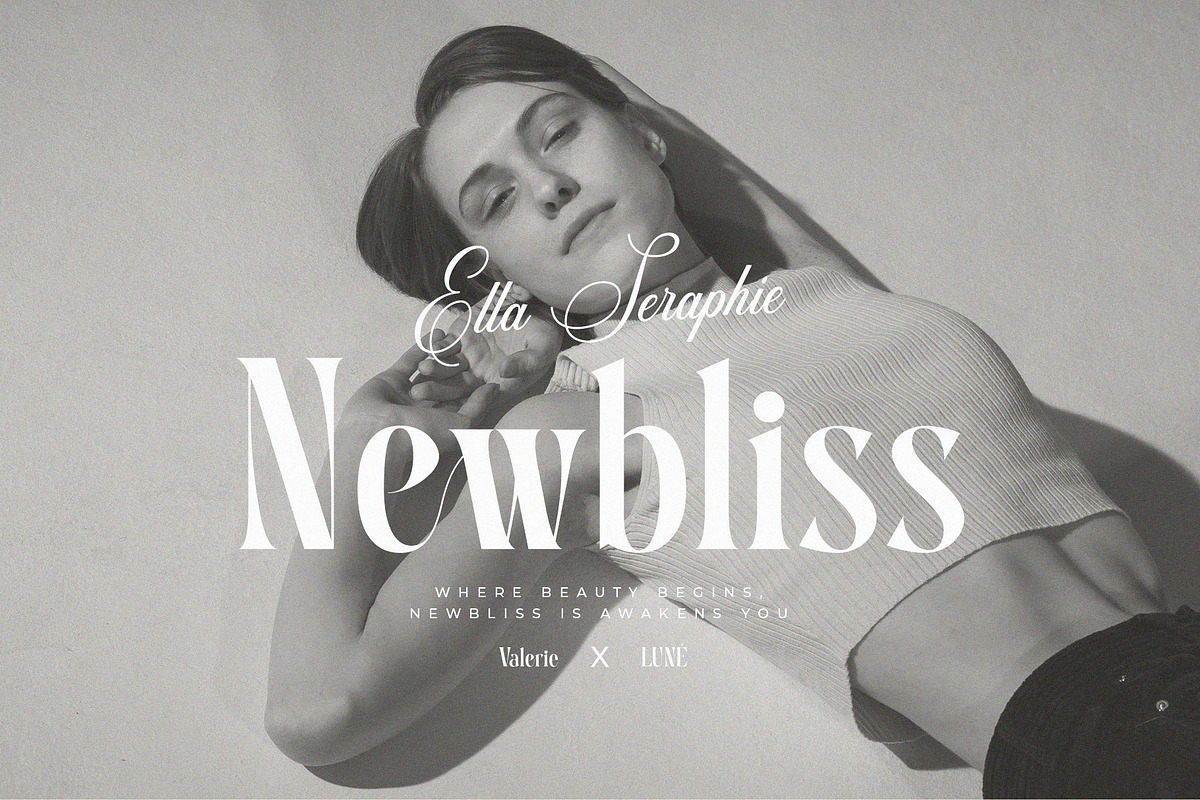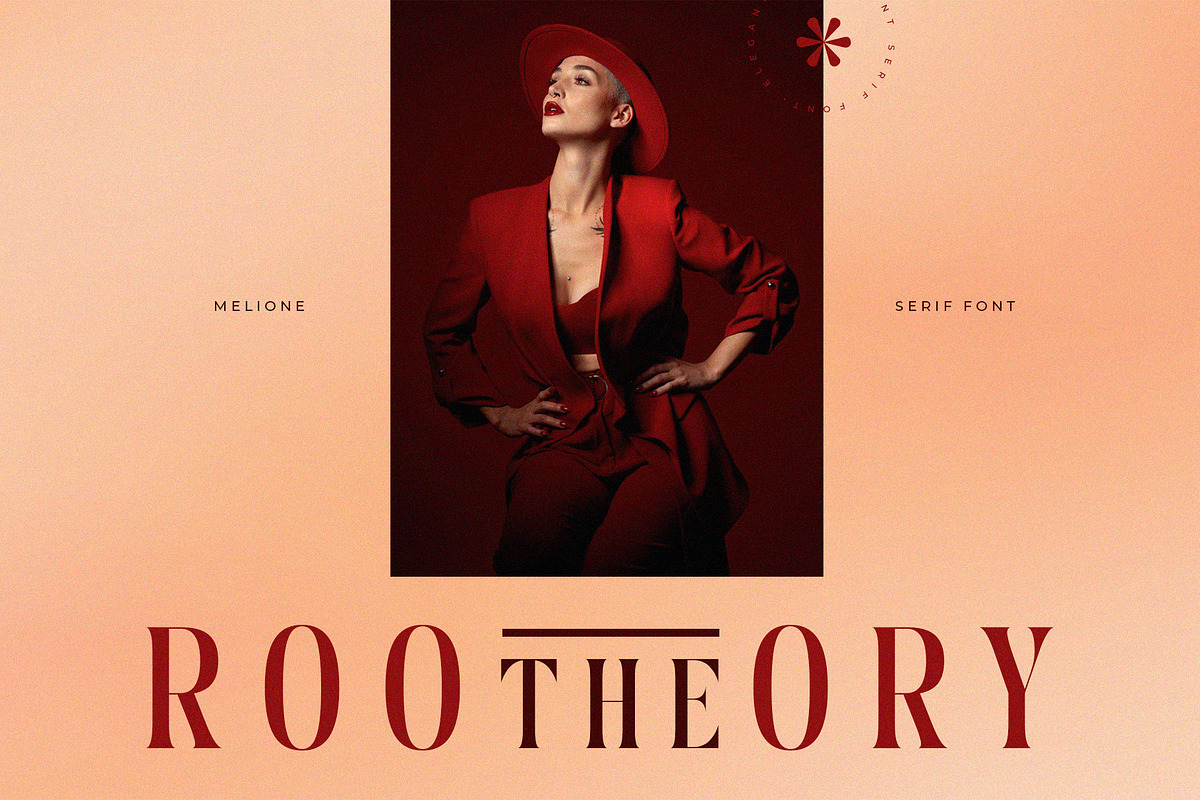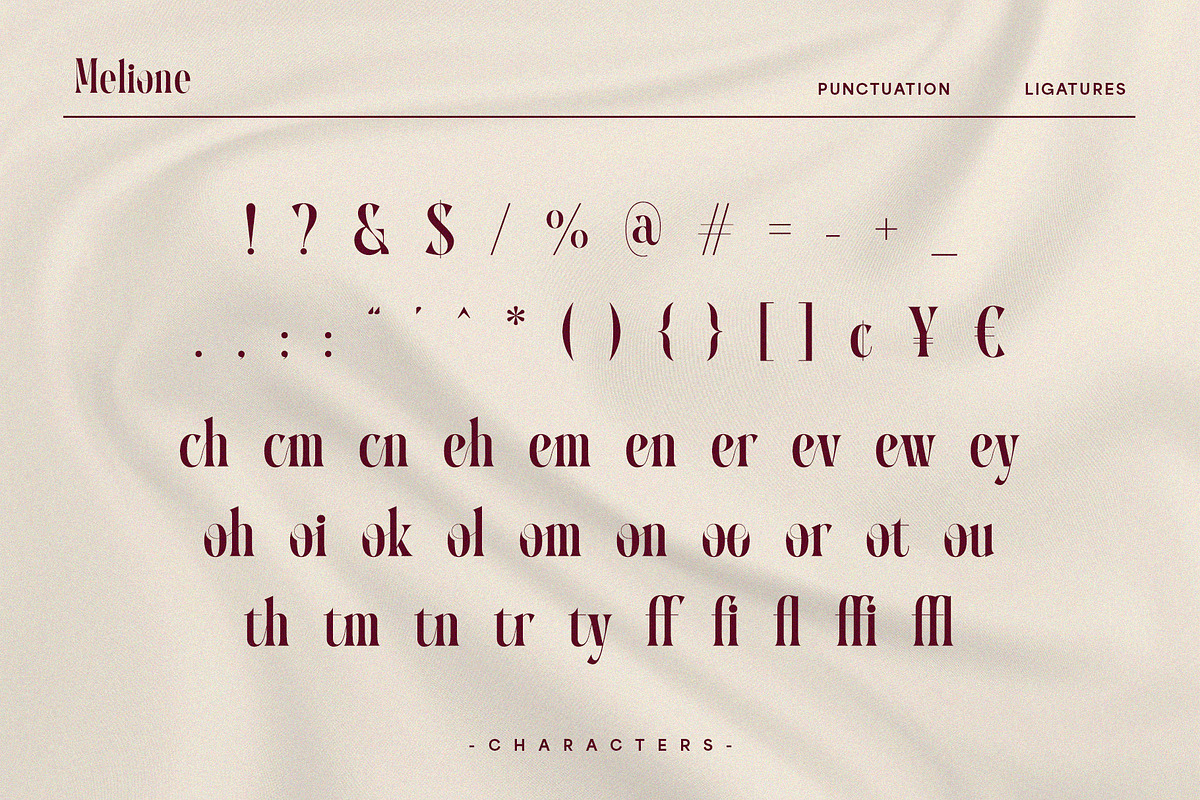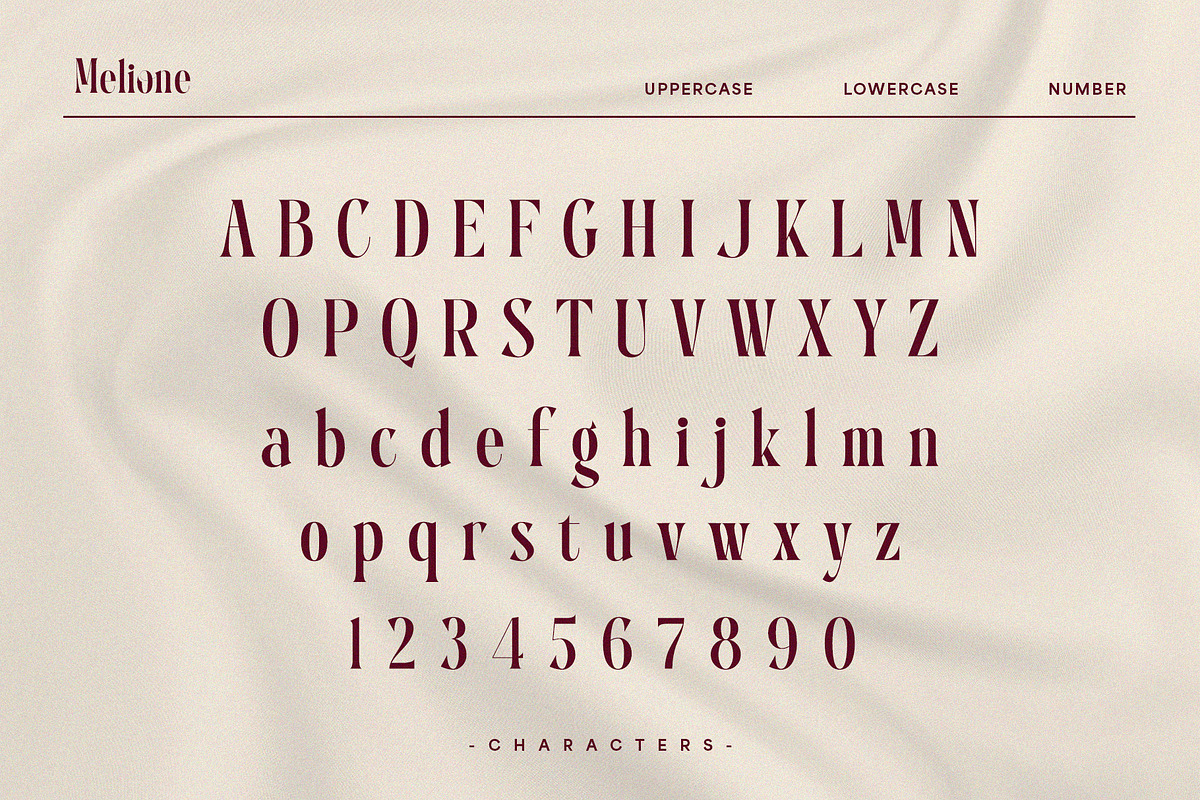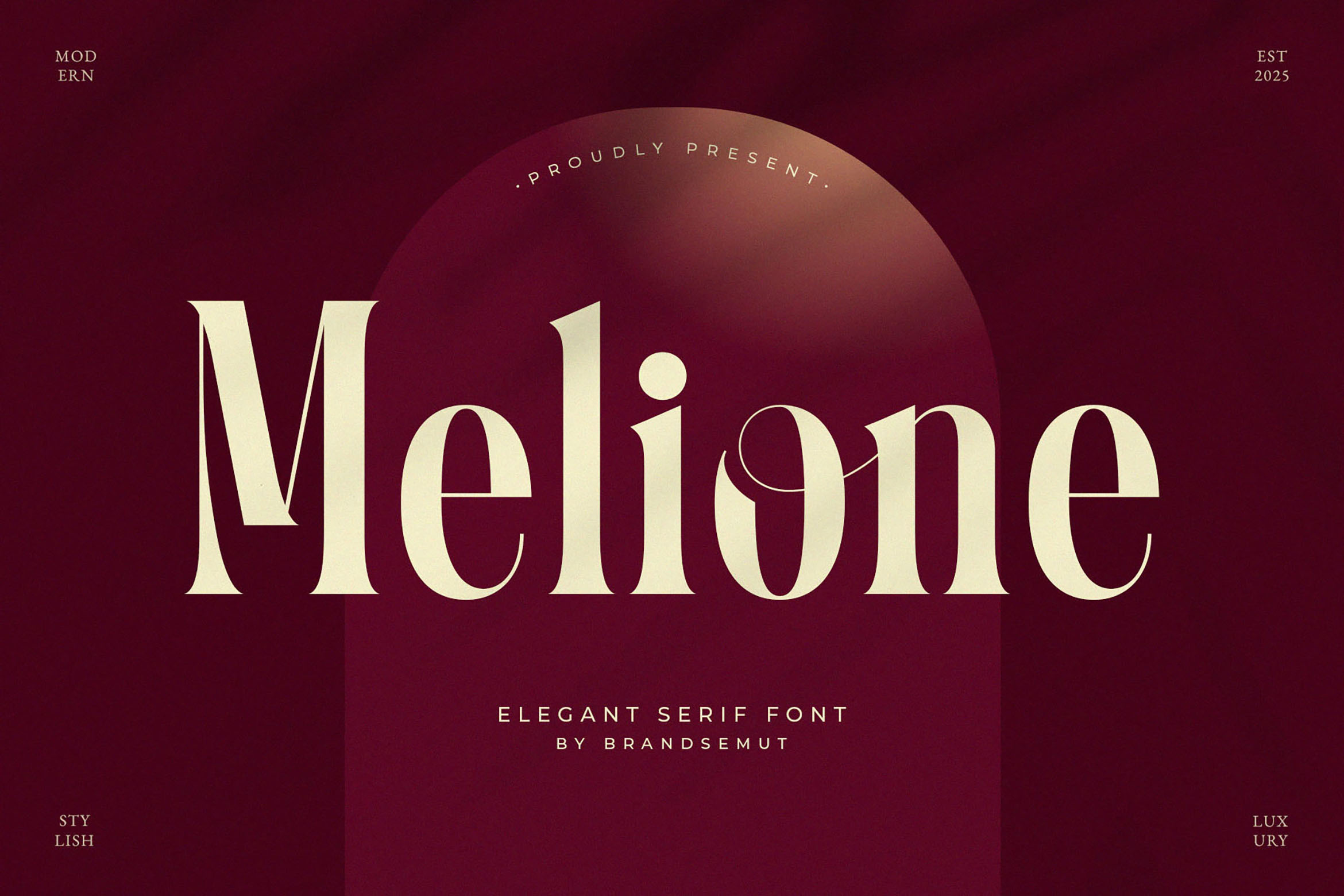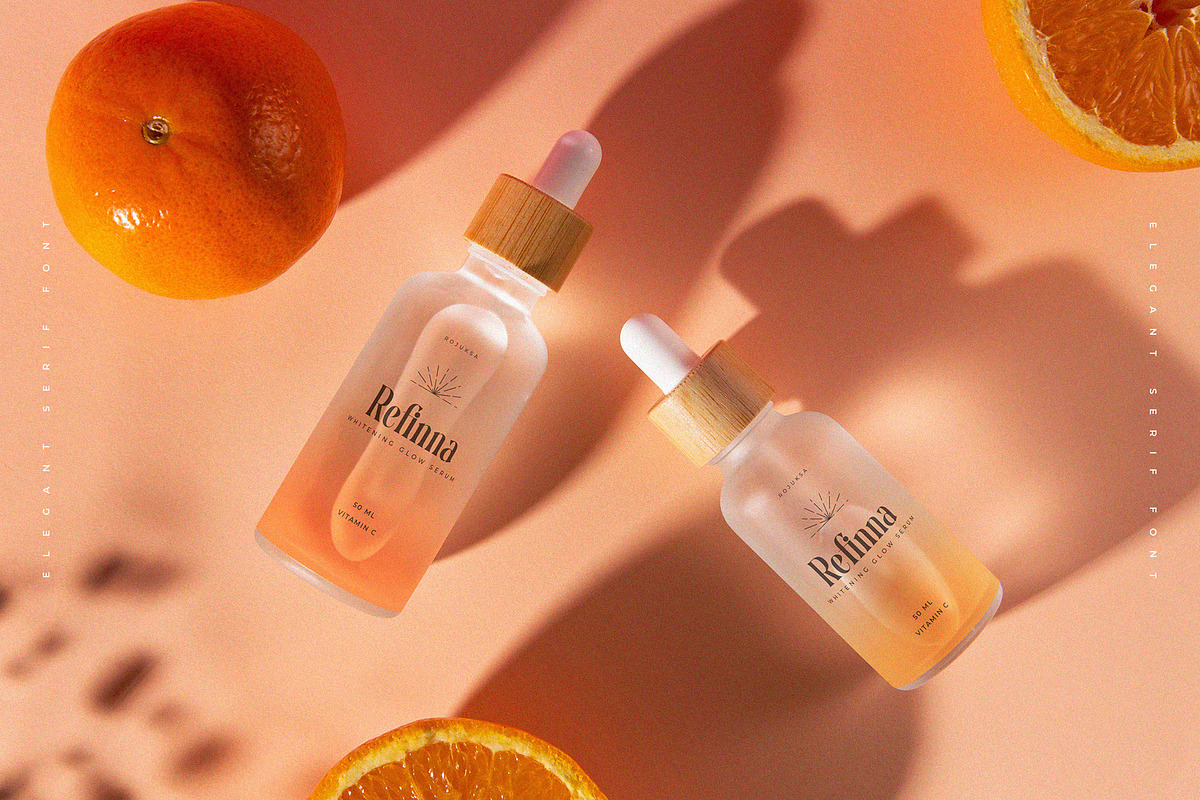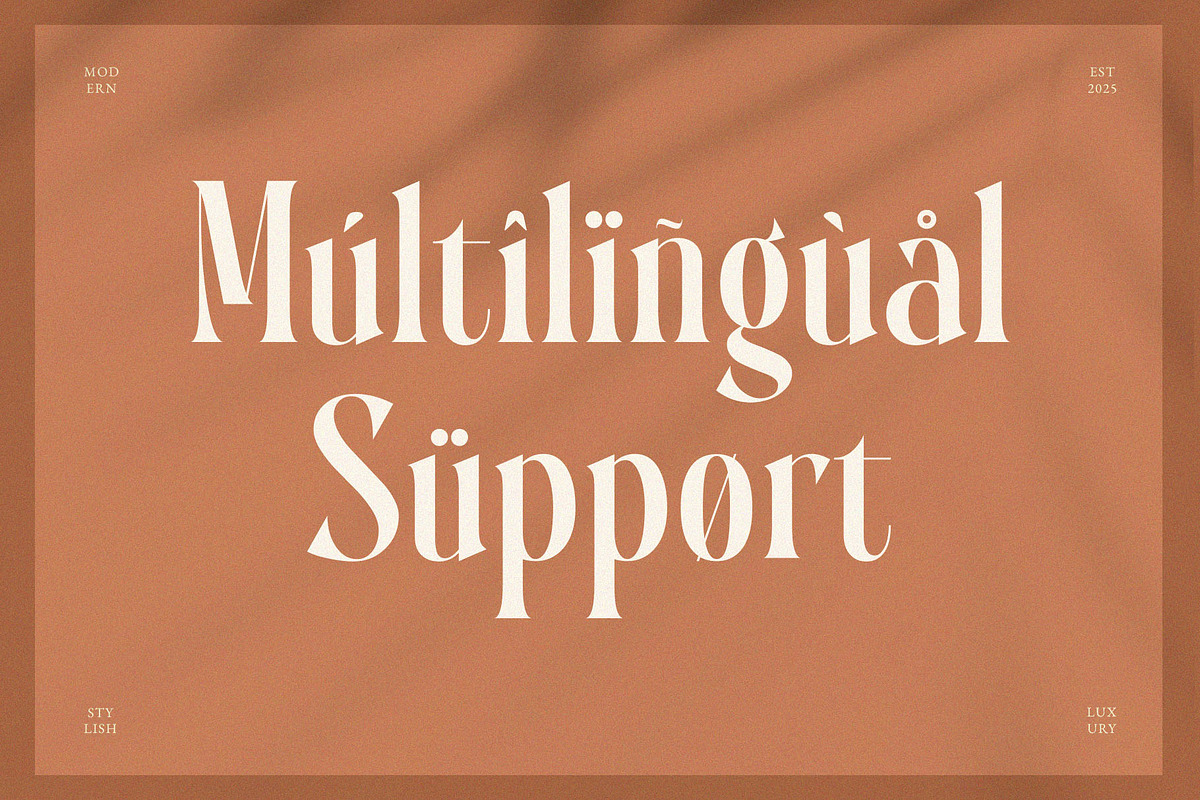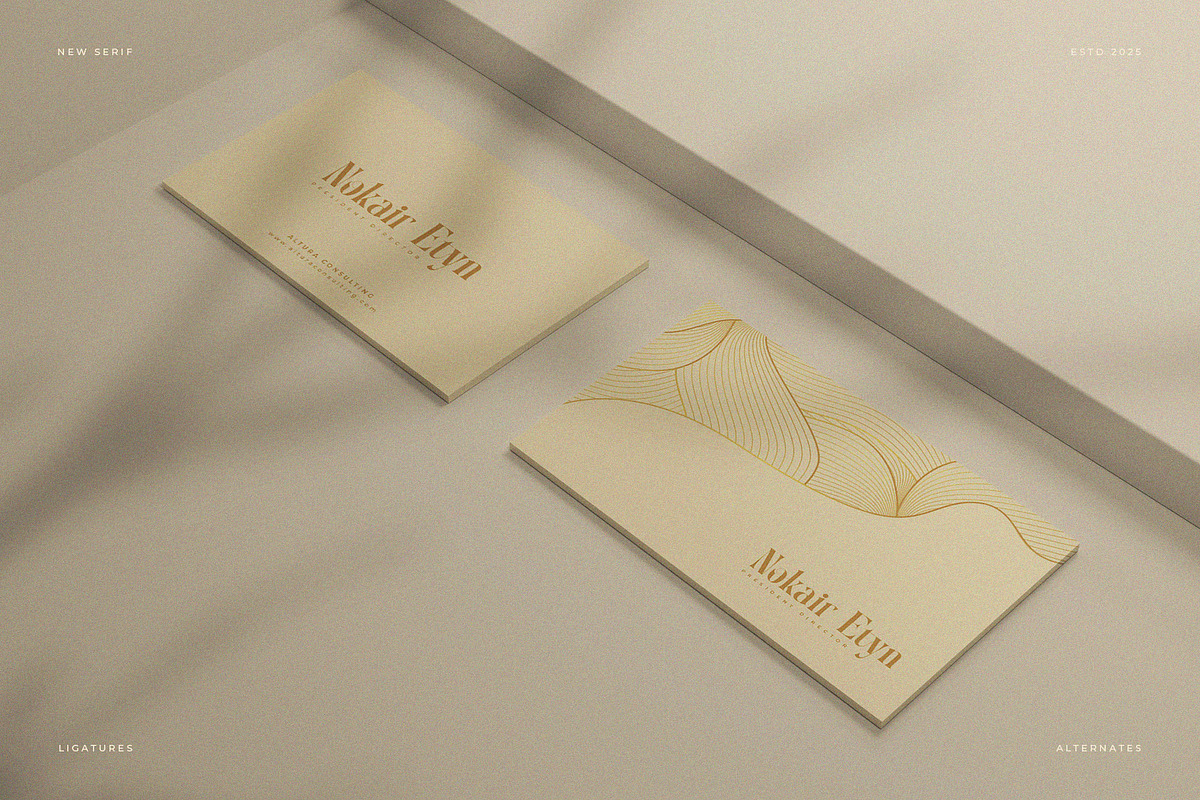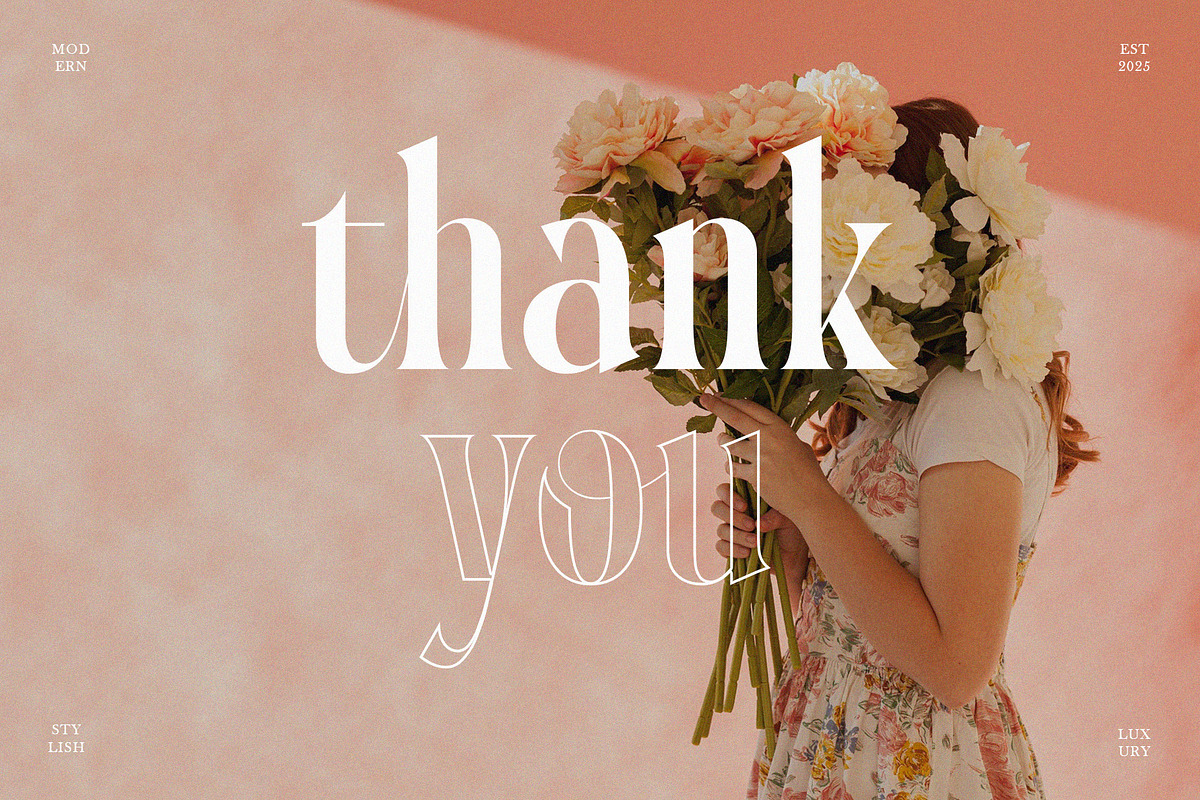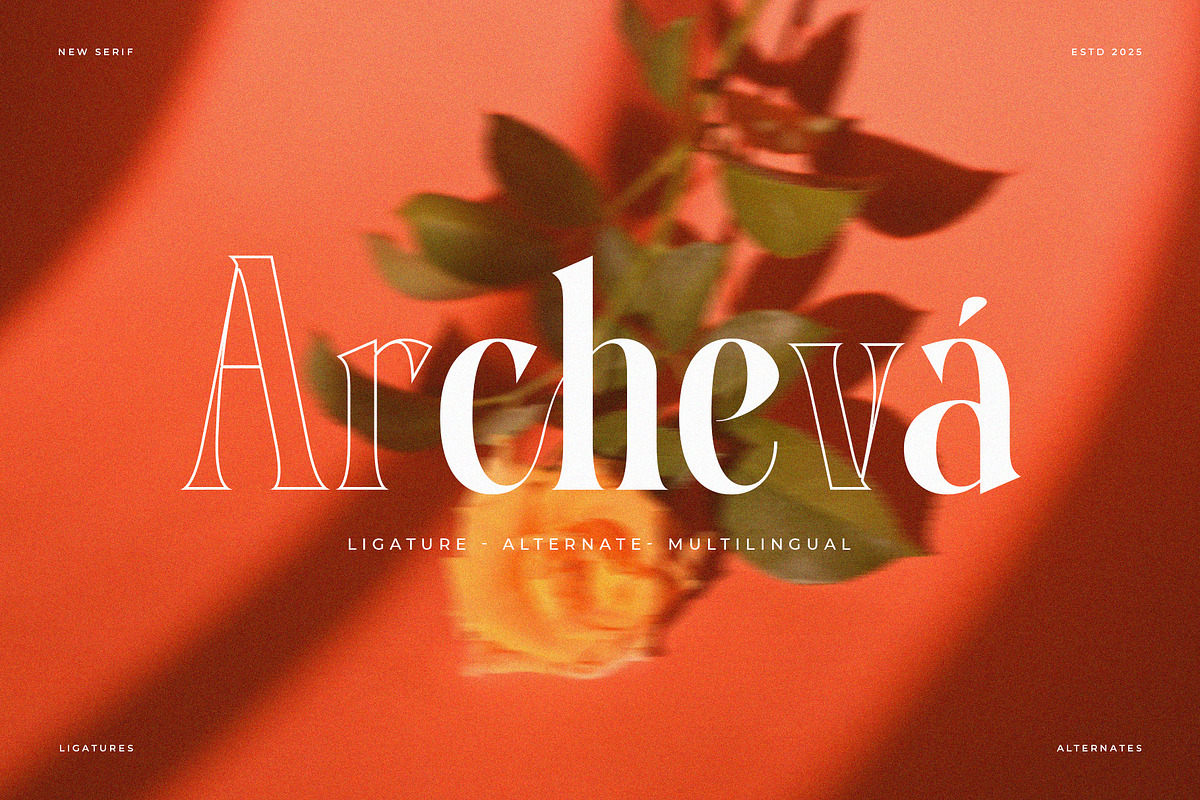
Melione – Elegant Modern Serif Font
Melione – Elegant Modern Display Serif Font with Stylish Ligatures for Luxury Branding
Melione is a sophisticated and stylish modern display serif font crafted with refined elegance and artistic detail. Featuring high contrast strokes, smooth curves, and decorative ligatures, this typeface captures attention while maintaining clarity and timeless appeal.
Designed for high-end design needs, Melione excels in a variety of applications including luxury branding, fashion editorial, wedding invitations, product packaging, and high-impact headlines. Each letterform is purposefully created to convey both modernism and classic charm, making it a highly versatile serif font for professional designers.
- Uppercase & Lowercase Letters
- Standard Ligatures & Alternates
- Ideal for: Logos, Branding, Editorials, Posters, Packaging, Wedding Stationery, Social Media Design
Whether you're developing a high-fashion brand, creating elegant titles for a magazine, or designing minimalist luxury packaging, Melione provides the perfect blend of structure and beauty.